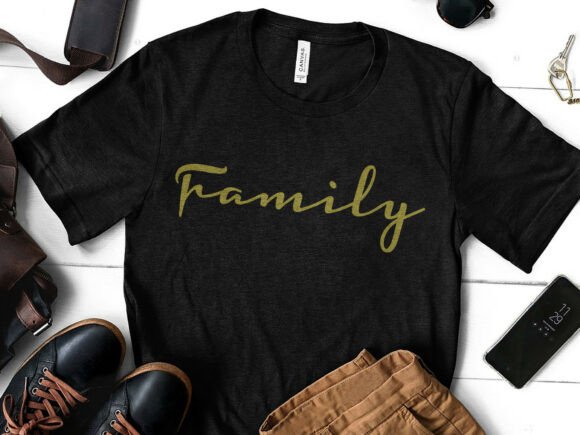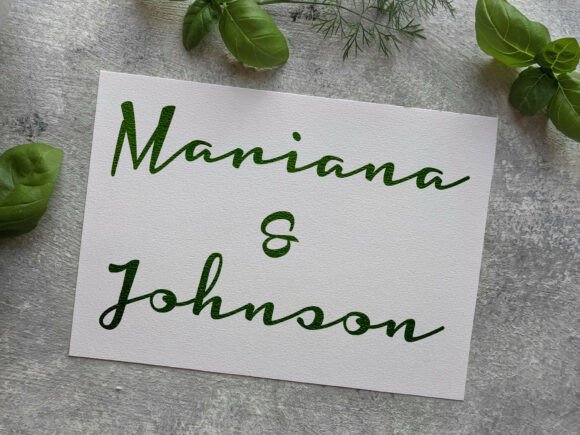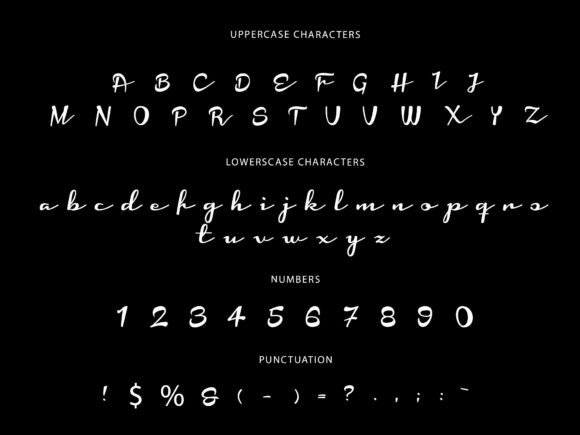
Introduction to Penilupi Font
Classic stylish script font with a timeless Retro touch.
Inspired by retro signage and vintage logo design, Penilupi brings a strong yet friendly personality to your projects Perfect for branding, posters, packaging, and headlines, this font gives a charming and confident vibe to any design.
Key Features of Penilupi Font